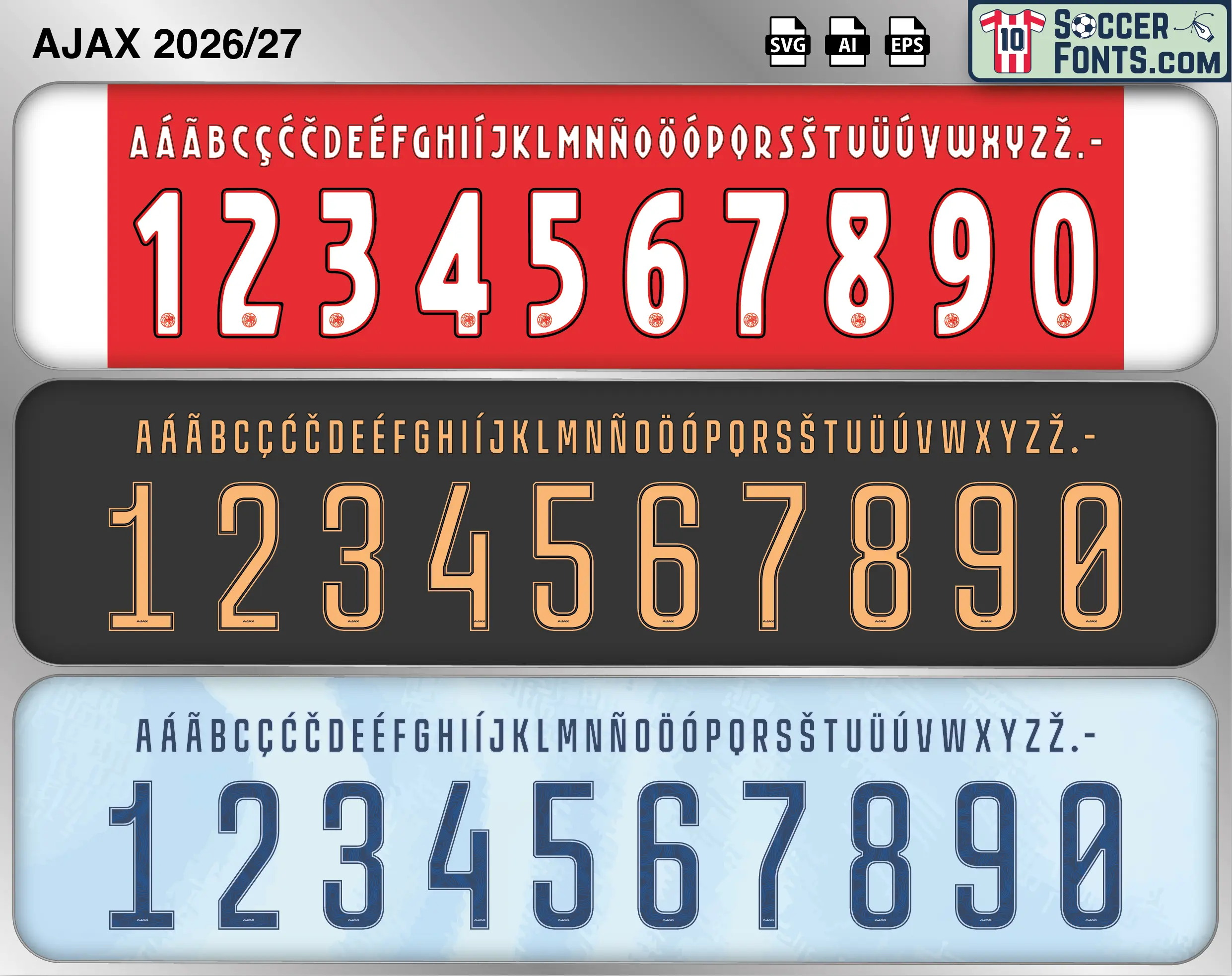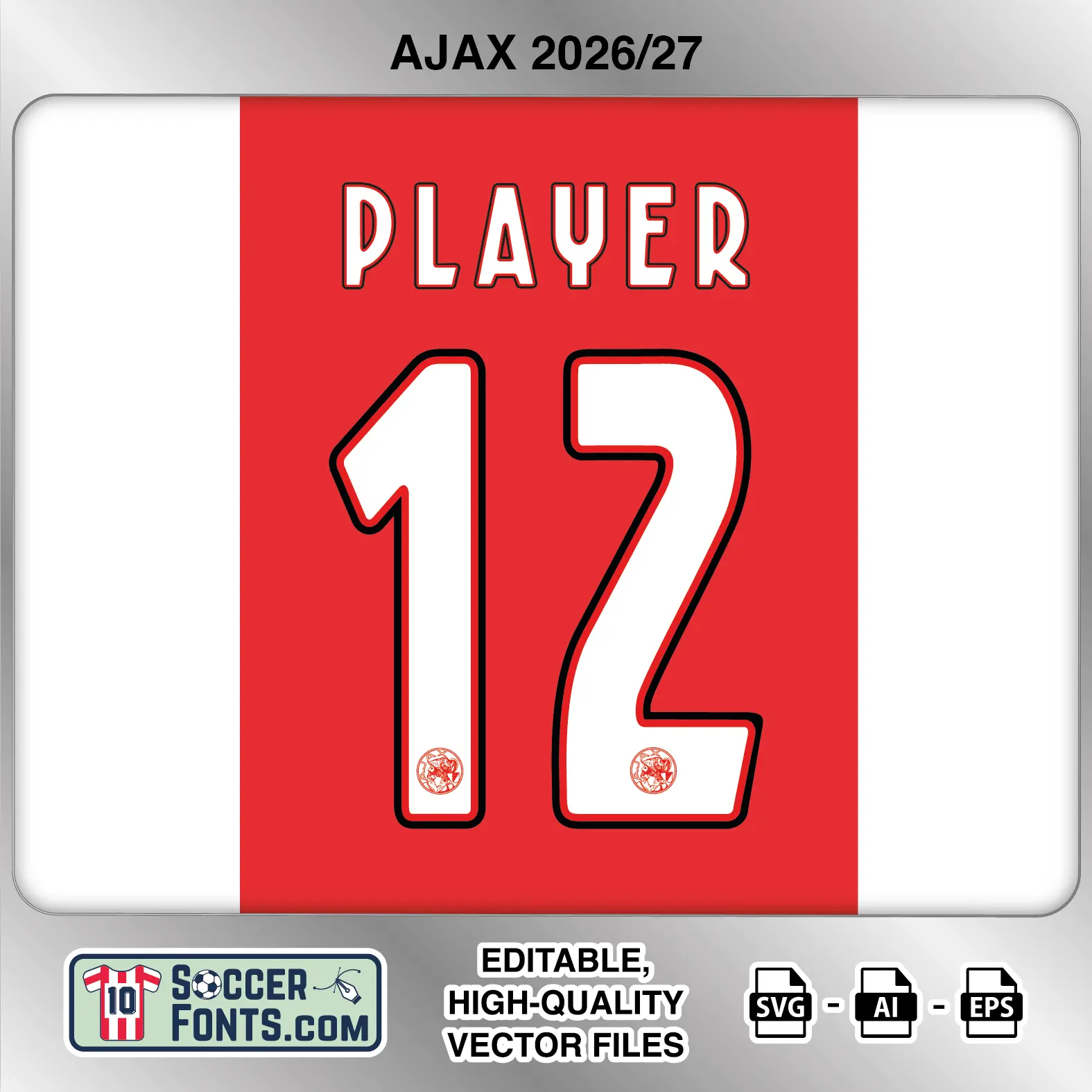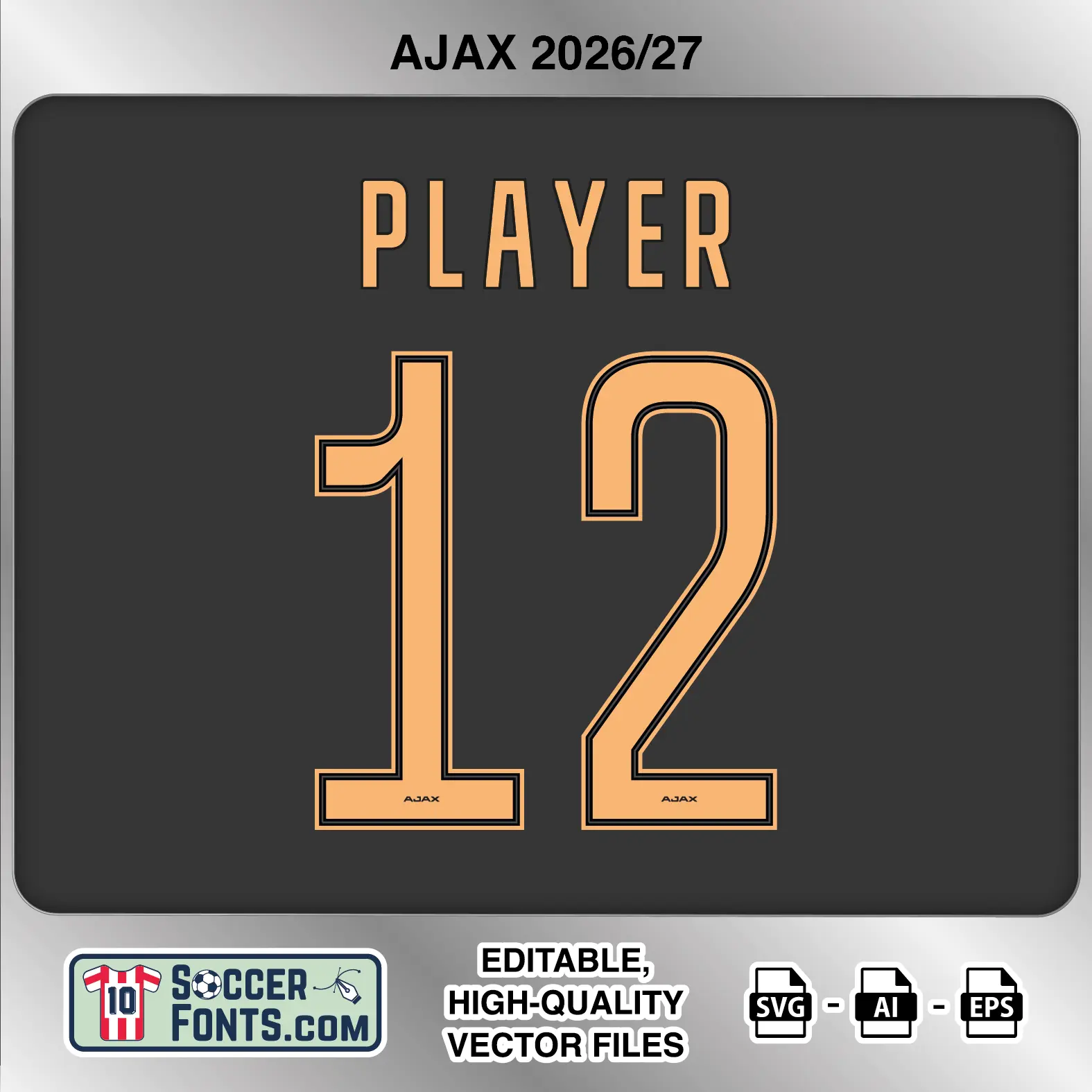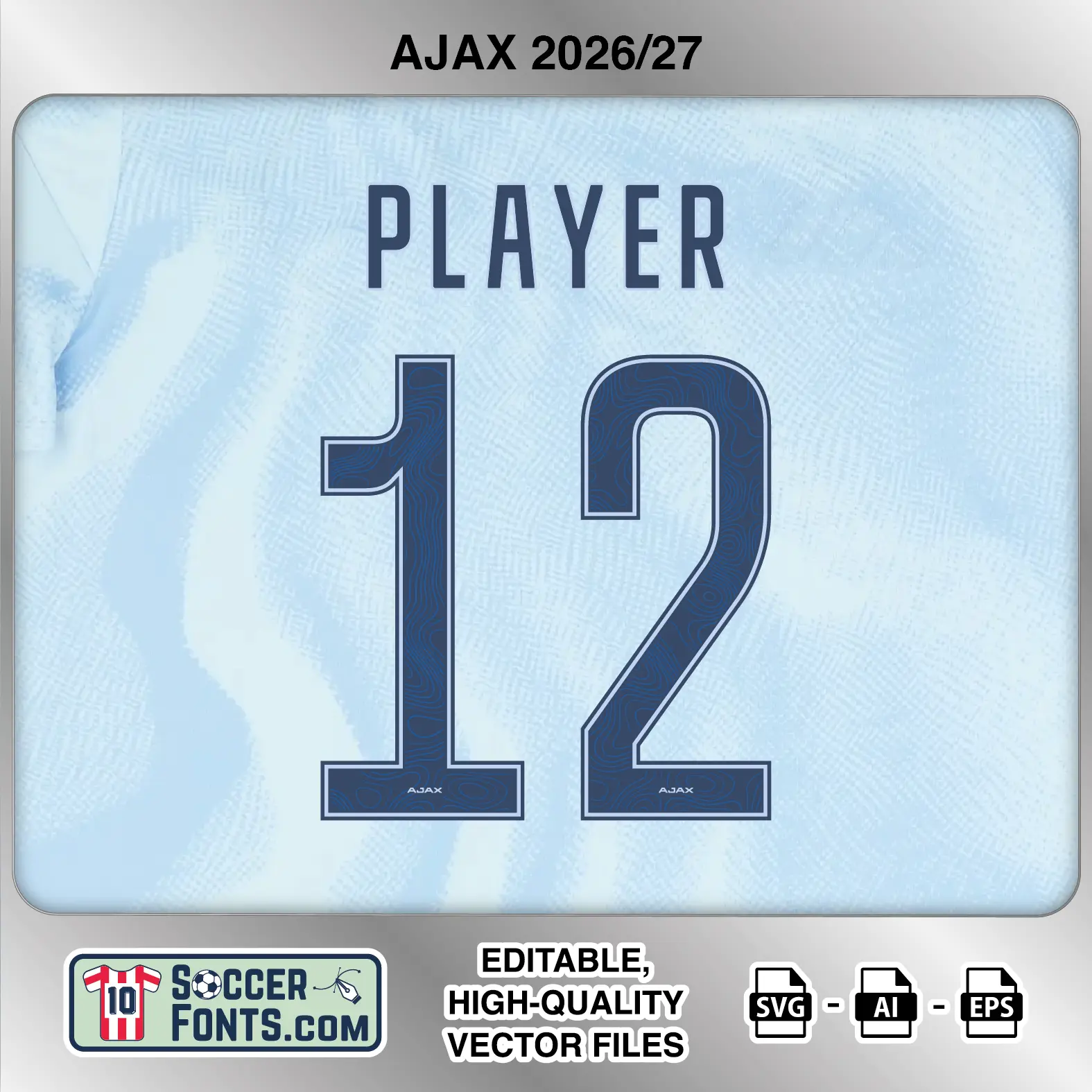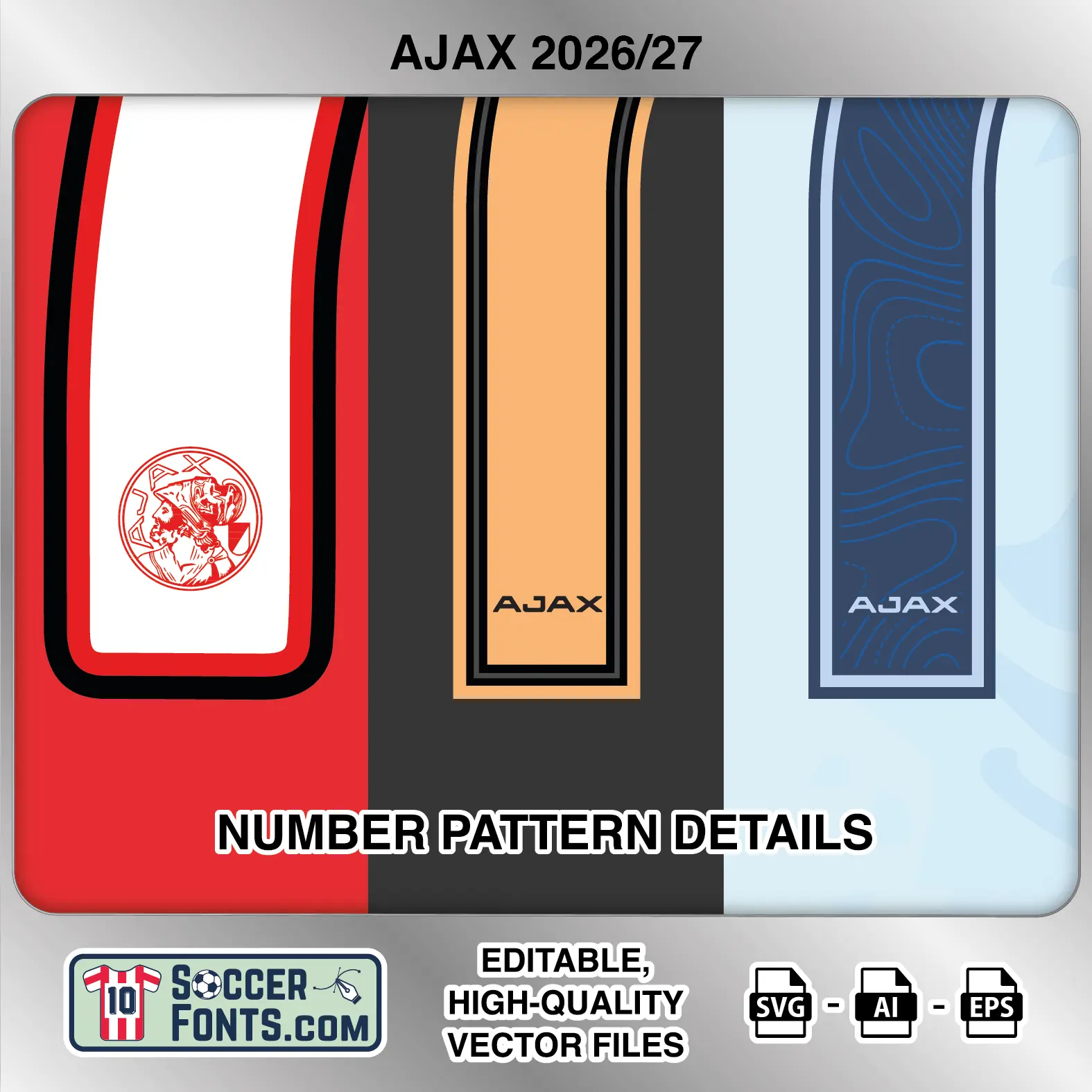
About Ajax 2026-27 Font
Download Ajax 2026-27 font, a complete editable soccer jersey lettering collection in vector format inspired by the Ajax home, away and third kit styles used during the 2026-27 football season. This football font package includes three separate lettering designs prepared for football shirt recreations, custom jersey projects, football kit mockups and sports graphic design workflows.
Visual Identity of the Font Design :
The Ajax 2026-27 font collection includes three distinct lettering treatments for the home, away and third kits. The home version uses tall condensed uppercase letters with large white numbers surrounded by red and dark outlines, creating strong separation against the traditional red central section of the shirt. Its numerals combine narrow proportions with rounded curves and more expressive shapes across figures such as 2, 3, 6, 8 and 9, while a small Ajax crest appears near the base.
The away version uses an even more elongated, narrow construction in a peach-orange color. Fine dark lines run around the numbers to create a layered outlined appearance, while the small “AJAX” wordmark is positioned along the bottom of each numeral.
The third version retains the condensed proportions of the away set but changes to dark navy lettering and numbers. The numerals feature a fine lighter edge together with a subtle tonal pattern visible inside their fills. The “AJAX” wordmark again appears at the base. Across all three sets, extended accented uppercase characters are included for a wider range of international player names.
Context of 2026-27 Season for Ajax :
Ajax entered the 2026-27 campaign with Míchel Sánchez beginning his first season as head coach and the club moving into another stage of its sporting rebuild. The Ajax 2026-27 Font collection belongs to this period, bringing together the different shirt lettering identities used across the home, away and third kits during the campaign.
The squad combined experienced figures such as Davy Klaassen and Steven Berghuis with younger players including Mika Godts and Jorthy Mokio. Domestic competition in the Eredivisie remained central to the season, while European fixtures and the club’s traditional rivalries added further variety to the schedule.
For collectors, shirt customizers and football graphic projects, the Ajax 2026-27 Font provides all three kit-specific lettering styles in one package rather than focusing on a single shirt. The Ajax 2026-27 Font therefore offers a broader reference to Ajax’s complete 2026-27 kit cycle and the visual identity associated with this chapter of the Amsterdam club.